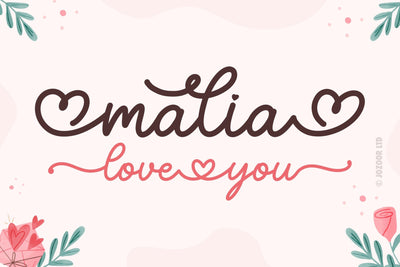
Malia Love You - Lovely Script Font
Malia Love You is a lovely heart monoline script font for wedding invitations, save the date cards, fine art papery, feminine branding, personal gift cards other romantic projects.
- Beginning swashes (tails).
- Ending swashes (tails).
- Connecting hearts.